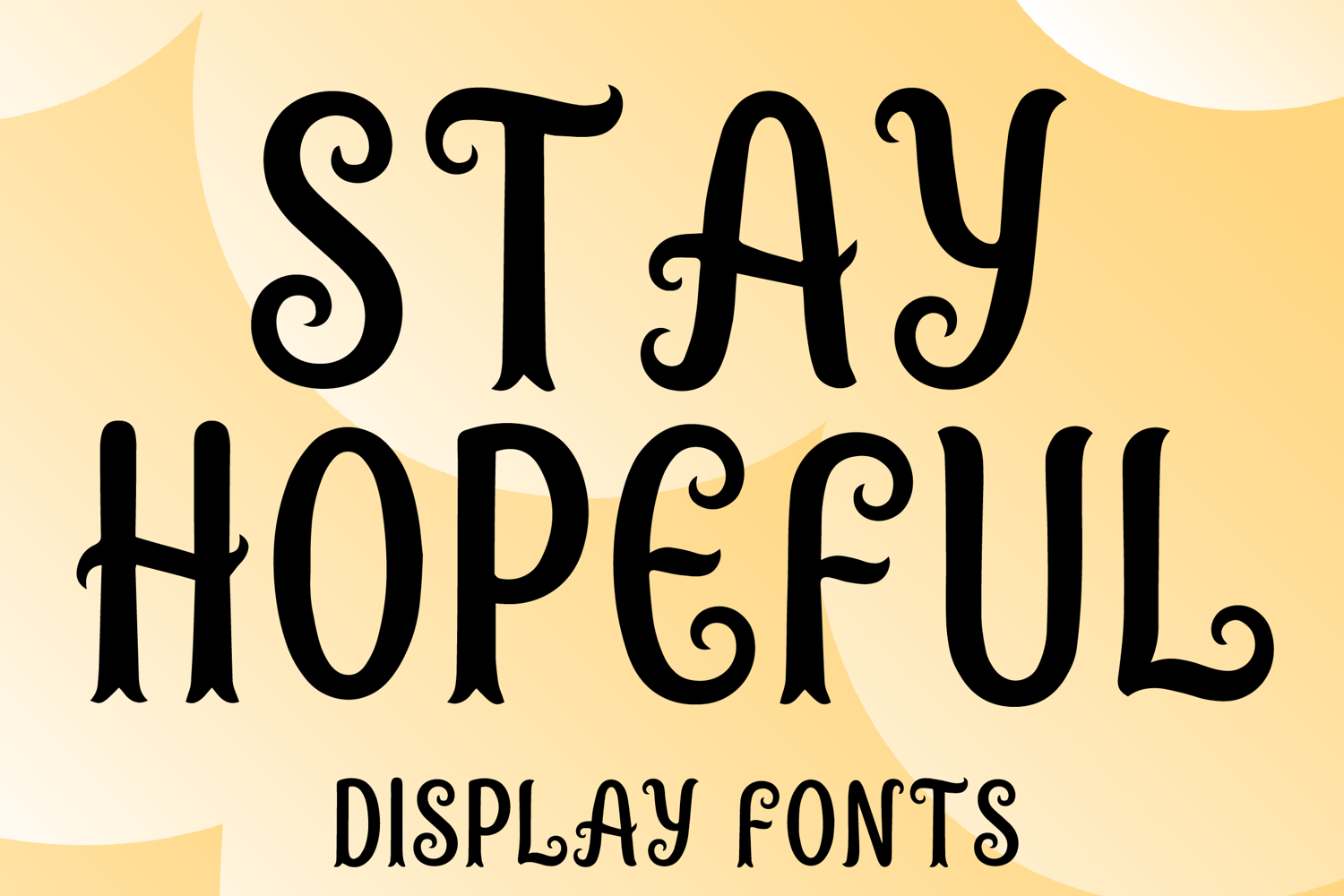
STAY HOPEFUL
STAY HOPEFUL is a whimsical decorative display font with an elegant handcrafted style and soft vintage charm. Its uppercase letterforms feature tall graceful shapes, rounded strokes, and playful spiral terminals that create a warm, cheerful, and eye-catching personality. Designed with uppercase letters A–Z and numbers 0–9, STAY HOPEFUL is perfect for branding, posters, packaging, invitations, quotes, social media graphics, and creative projects that need a heartfelt and memorable statement.